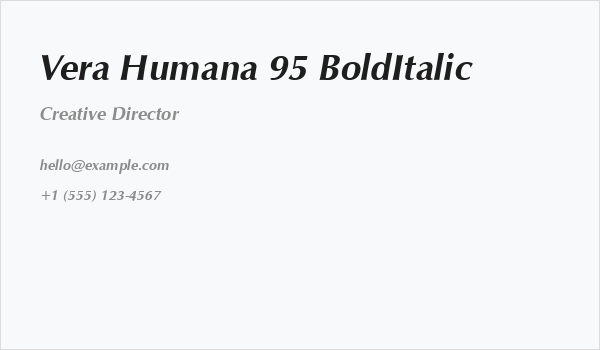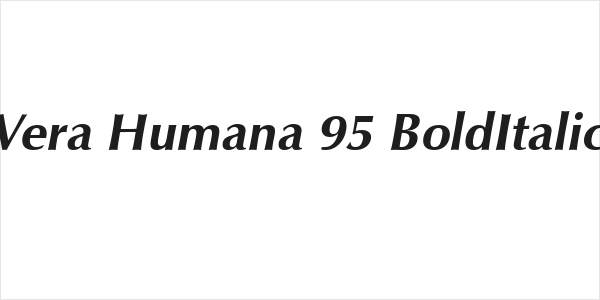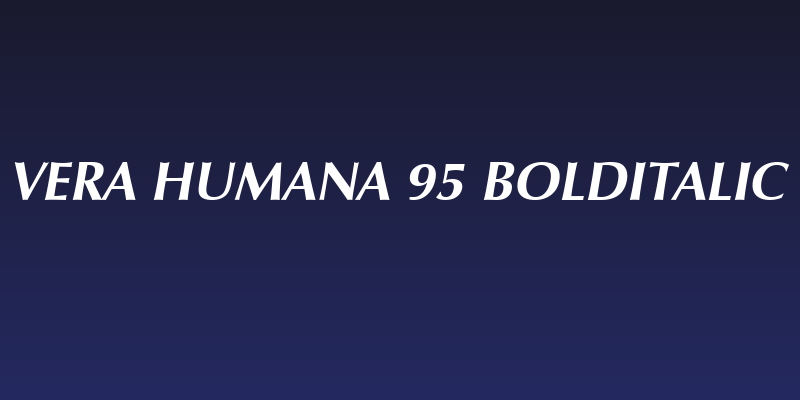
Vera Humana 95 BoldItalic Font
Vera Humana 95 BoldItalic Description
This font exhibits a bold and italicized style, characterized by its strong presence and dynamic slant. The uppercase letters are tall and commanding, while the lowercase letters maintain a consistent flow, enhancing readability. The numerals are clear and distinct, making them suitable for various applications. Special characters are well-defined, adding versatility to the font's usage. The overall design is modern yet timeless, making it adaptable for both digital and print media.
| Proposed Projects | Ideal for branding, advertising, headlines, and editorial design where a strong and elegant presence is required. |